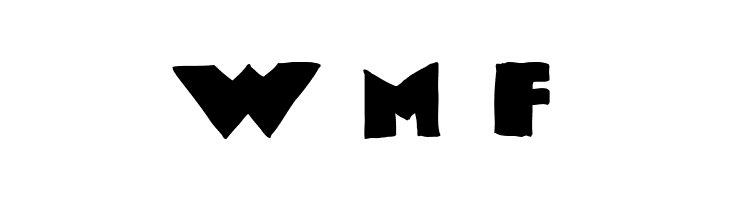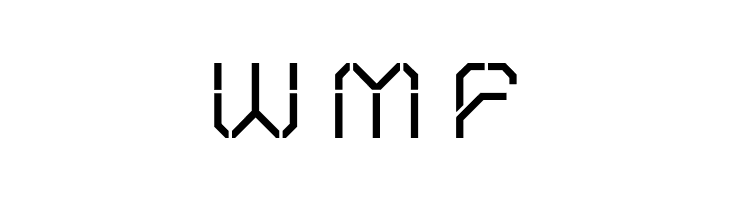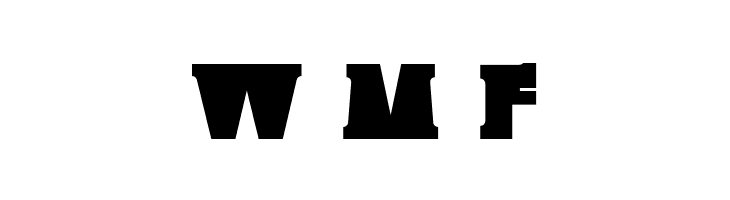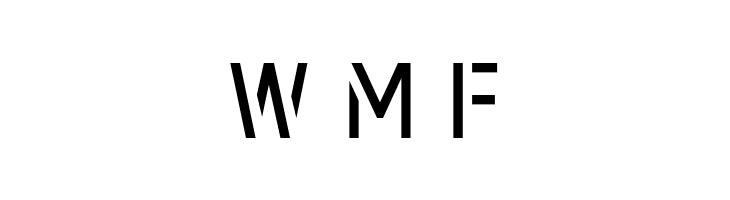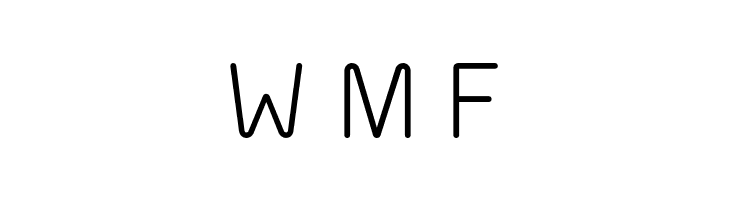
A bold, playful font with a hand-drawn, irregular style.
A modern, geometric stencil font with bold, angular lines and a futuristic feel.
A bold, blocky font with strong, impactful characters.
A bold, geometric stencil font with sharp angles and cut-out sections.
A modern, rounded sans-serif font with a clean and approachable style.